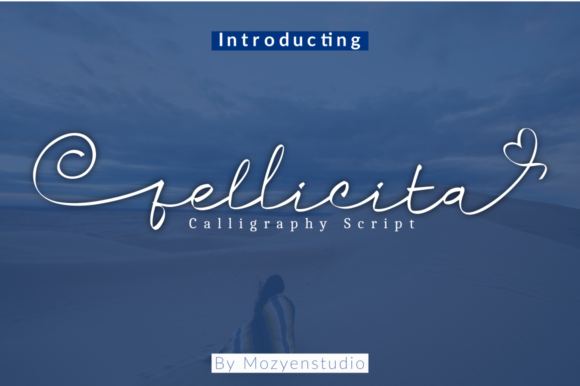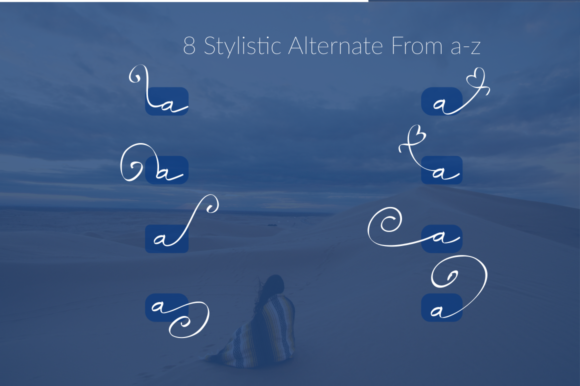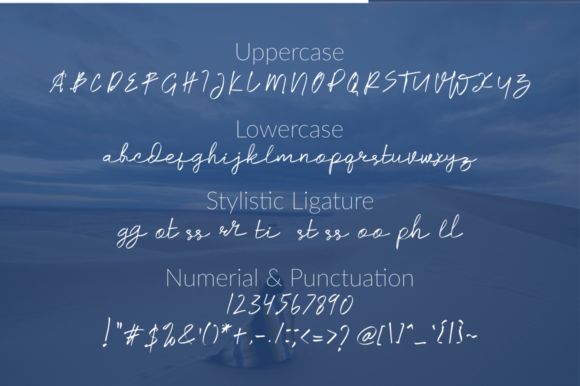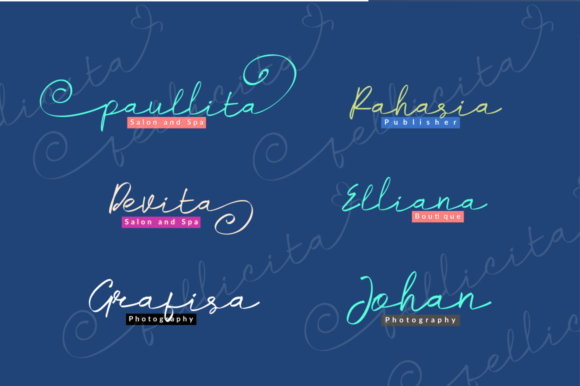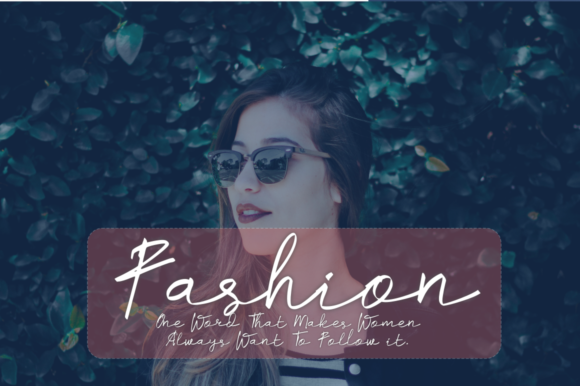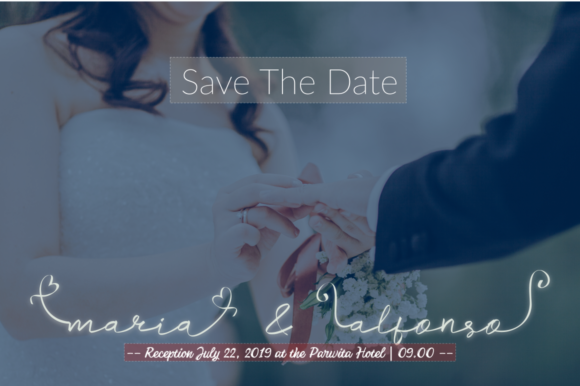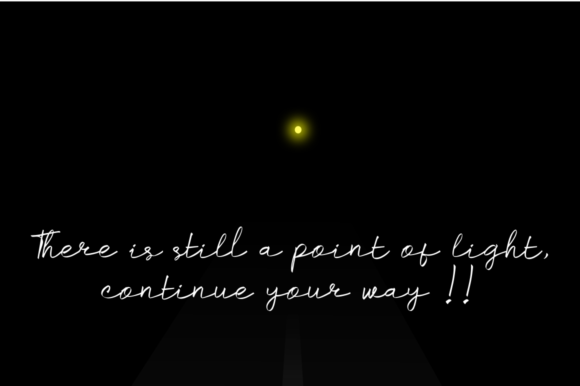
Fellicita Font
About Fellicita Font
Fellicita Calligraphy Script is a lovely handwritten font that gives your design a sense of calmness. Get inspired by its charming curves.